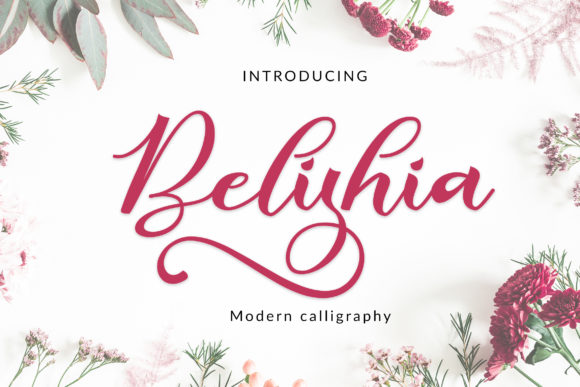
Unleash your creativity with Belishia Font, a breathtaking script font that captures the essence of modern calligraphy. Its elegant curves and dynamic swashes bring a touch of charm to any project, making it the perfect choice for creating unique and captivating designs.
Immerse yourself in the world of exquisite typography with Belishia's remarkable features. Explore the boundless possibilities of stylistic sets and alternates, allowing you to customize your designs with a personal touch. Let your imagination soar as you bring life to wedding invitations, stationary art, social media posts, and greeting cards with this versatile font.
Transport yourself to a realm of elegance and sophistication with Belishia. Its authentic feel adds a layer of depth and authenticity to your creations, ensuring they stand out from the crowd. Whether you're designing logos, posters, flyers, or any other visual masterpiece, Belishia promises to elevate your work to new heights of creativity and beauty.